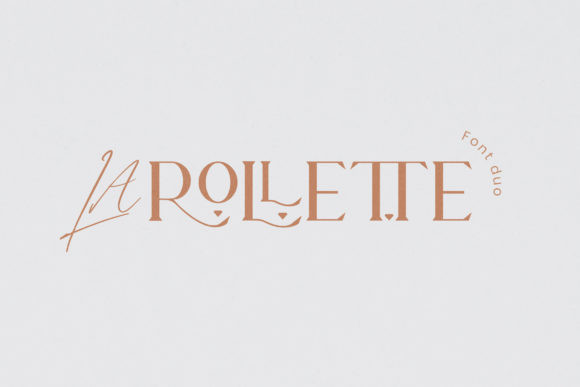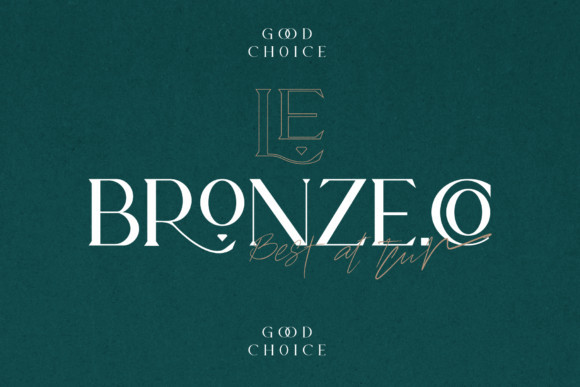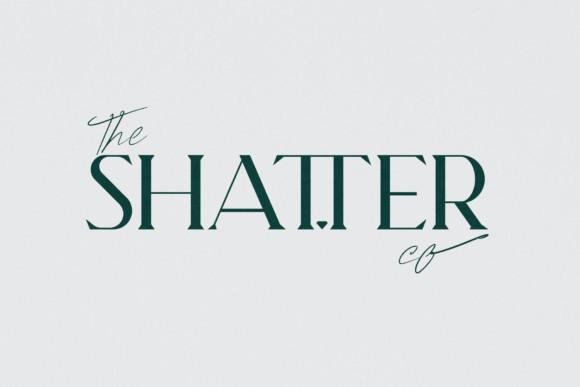
LaRollette Font
LaRollette FontLa Rollette is a stylish and delicate duo font ( handwritten and serif). It has a clean, thin and smooth vibe and it will be a hit for any design that you want to add it to.